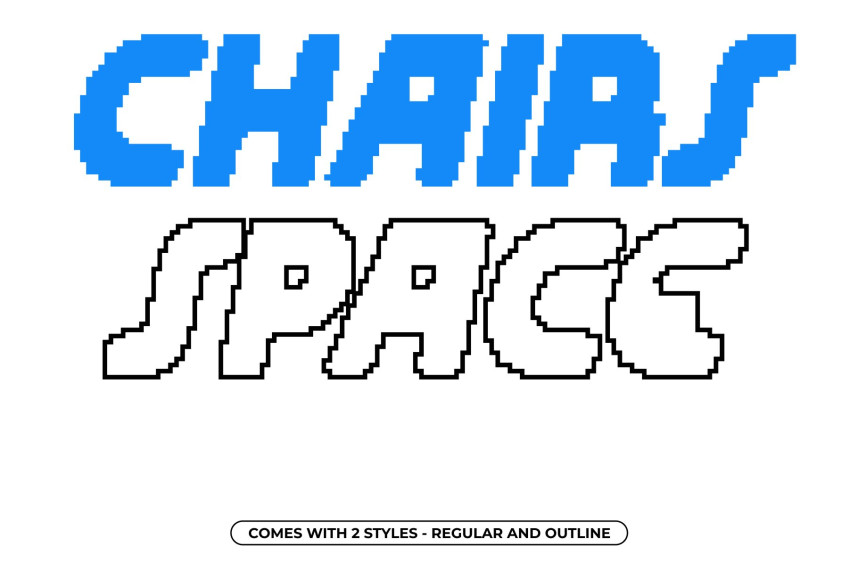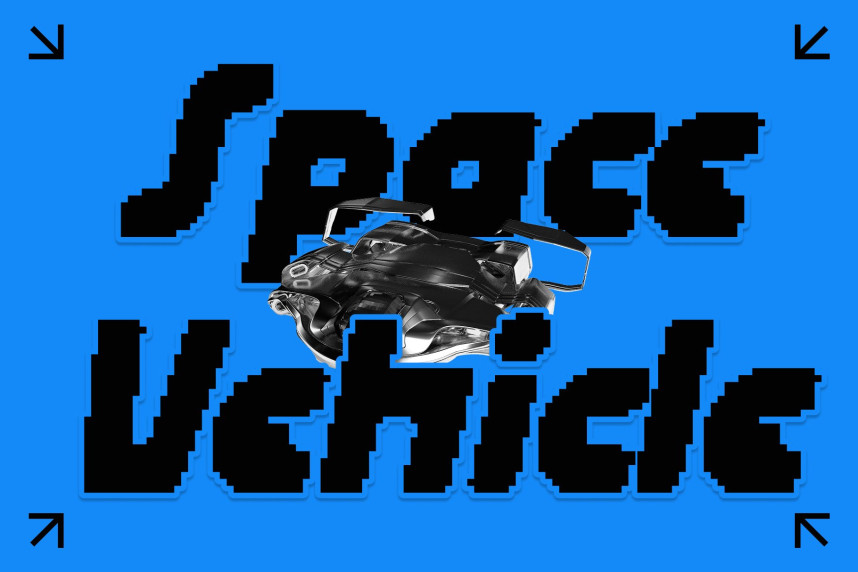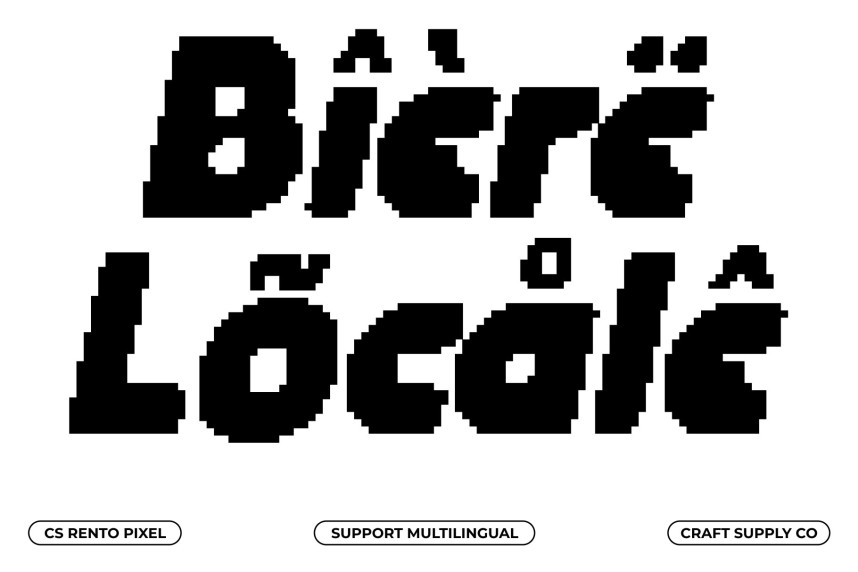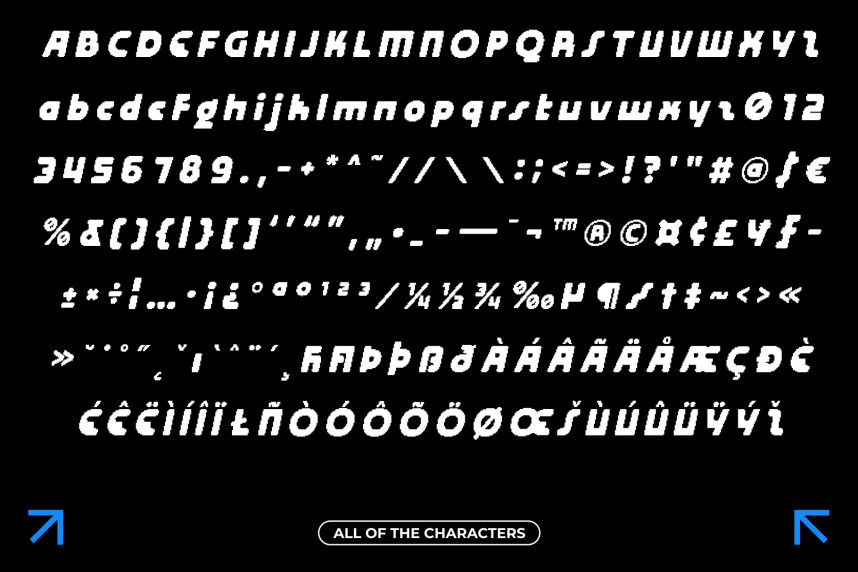
CS Rento Pixel Font
CS Rento Pixel Font – Bold Display Font with Futuristic Calm Bold Geometry with Soft Pixel Character. This is a bold display font built from strong geometric shapes enhanced with pixel-based detailing. Its solid structure delivers confident visual impact, while rounded edges and pixel construction introduce a softer, more approachable character.